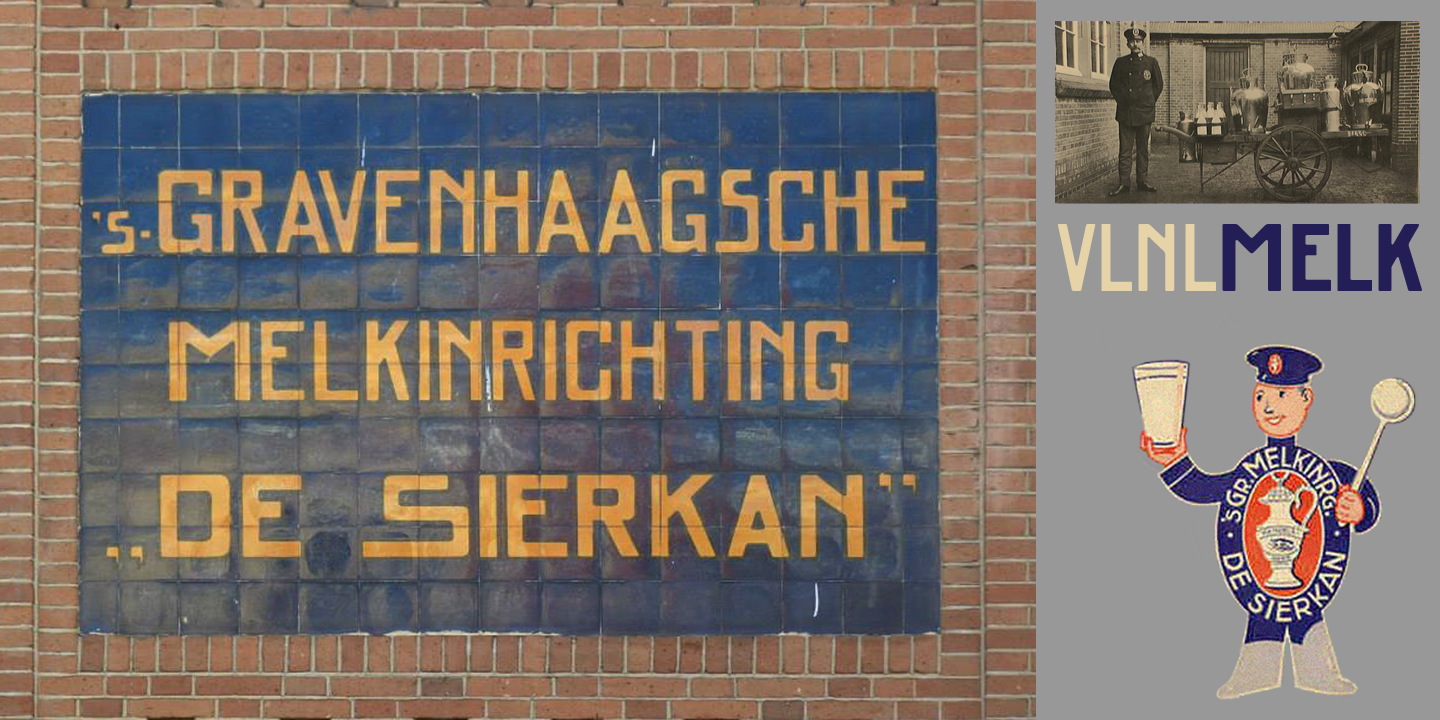
VLNL Melk Font is a uniquely charming and distinctive typeface, perfect for designs that aim to convey a sense of genuine warmth, artisanal quality, or a delightful, handcrafted aesthetic. Its forms, often featuring a friendly, organic feel with subtle irregularities, make it an excellent choice for boutique food packaging, café and bakery branding, children's book titles, and local market promotions. Imagine it gracing the label of a small-batch dairy product, providing a comforting feel for a farm-to-table restaurant's menu, or adding a whimsical touch to homemade gift tags. This font is also superb for social media graphics seeking a personable look, event invitations with a rustic or cozy theme, and any project where authenticity, warmth, and a visually appealing identity are key. It doesn't just display text; it feels like it's been lovingly made, bringing a wholesome story to life.
What makes VLNL Melk Font so exciting is its immediate ability to evoke feelings of comfort, simplicity, and genuine, unpretentious quality. It perfectly captures the charming imperfections and unique character that come from a handcrafted or rustic aesthetic, making any message feel more personal and warm. This distinctive personality makes it a fantastic choice for designers looking to infuse their projects with a sense of authenticity, warmth, and a memorable atmosphere. It’s a font that speaks with a friendly, inviting voice, making it ideal for brands and content creators who want to connect with their audience on a more personal and comforting level. Its endearing appeal can make any design feel more engaging and truly unique.
The VLNL Melk Font family, given its artistic and specialized nature, might not feature the extensive range of weights found in more traditional, smooth typefaces. Its primary strength lies in its unique, often singular, or stylistically distinct approach. However, variations or complementary styles might exist that enhance its expressive potential. You might find variations such as:
• VLNL Melk Regular (the primary distinctive style with its characteristic warmth)
• VLNL Melk Bold (for added emphasis while maintaining the cozy feel)
• VLNL Melk Textured / Distressed (if it features a more pronounced distressed or brush-stroke effect)
• VLNL Melk Ornaments / Doodles (often included as a bonus set of charming illustrations or decorative elements)
These variations empower designers to maintain a consistent thematic aesthetic while adding depth and visual punch to their compositions. The availability of VLNL Melk Font Free Download offers an excellent opportunity to explore its unique charm and expressive potential for your personal design ventures.